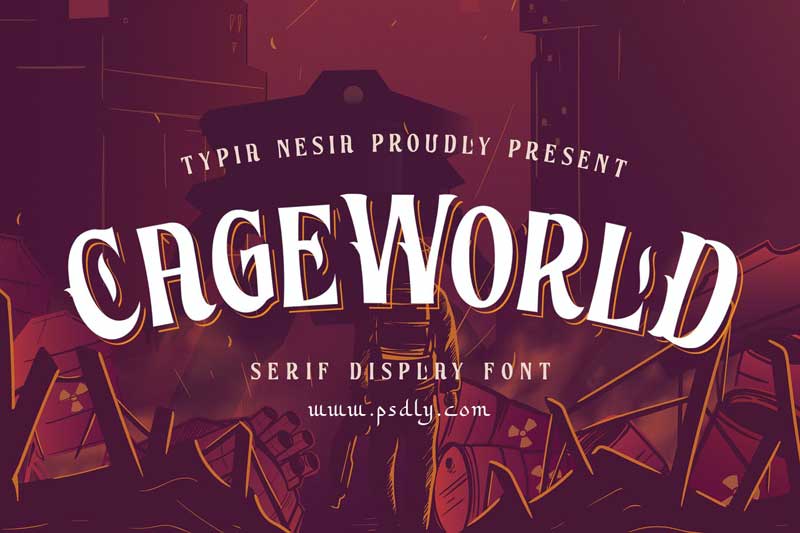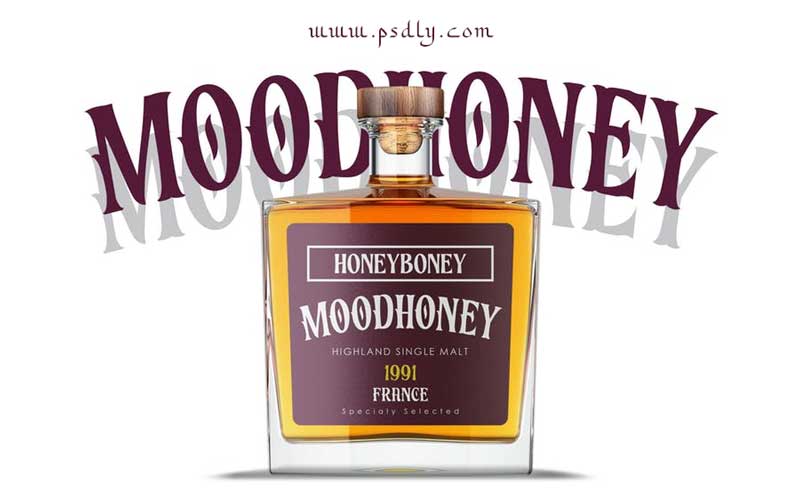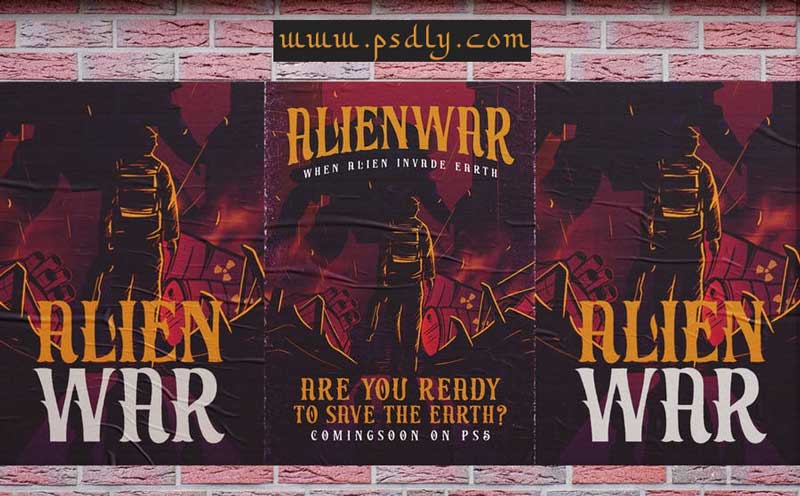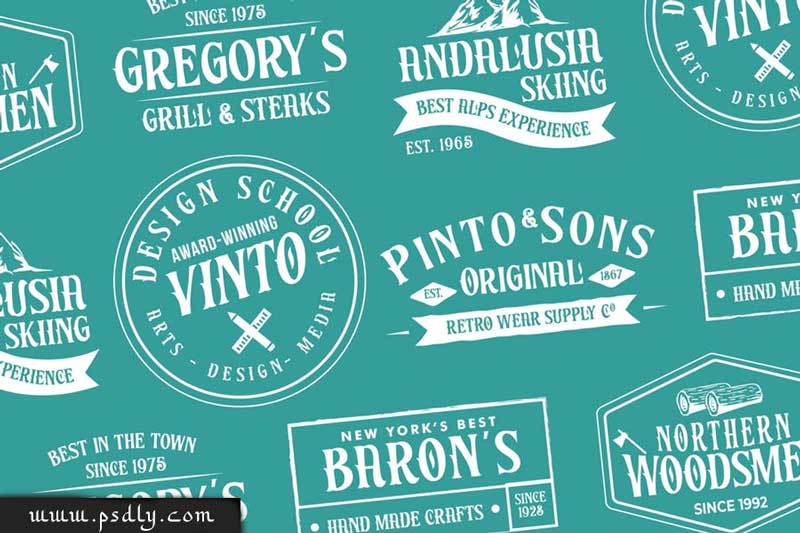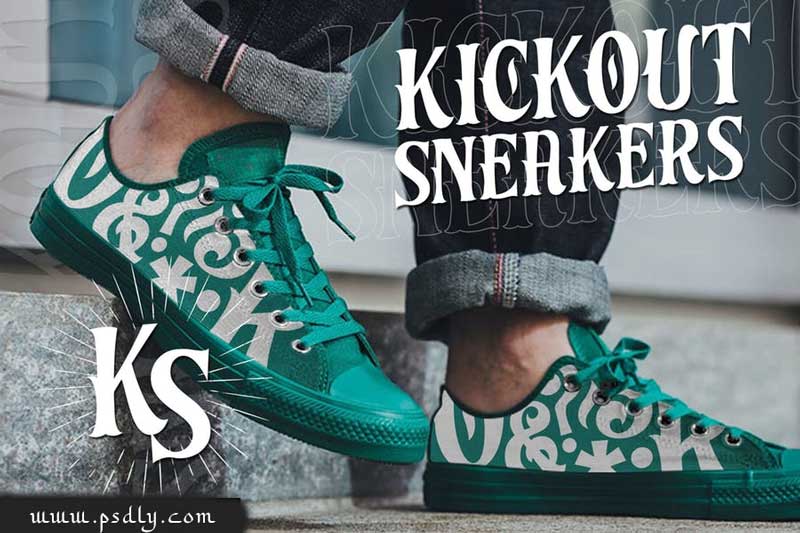
CageWorld – Game Font
CageWorld – Game Font – Display Serif. CageWorld is a handcrafted vintage display font. It can be used for different purposes: lettering and logotype, labels, t-shirts, product packaging, invitations, advertising, and any classic/vintage typography design projects. Also checkout Mantonico Font Family.